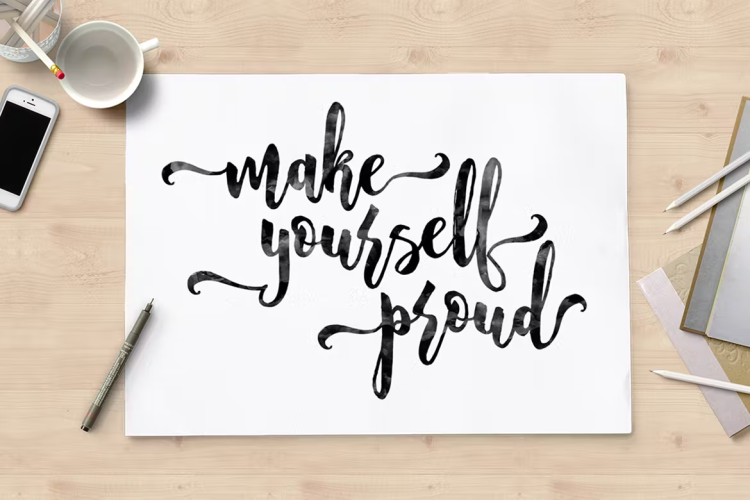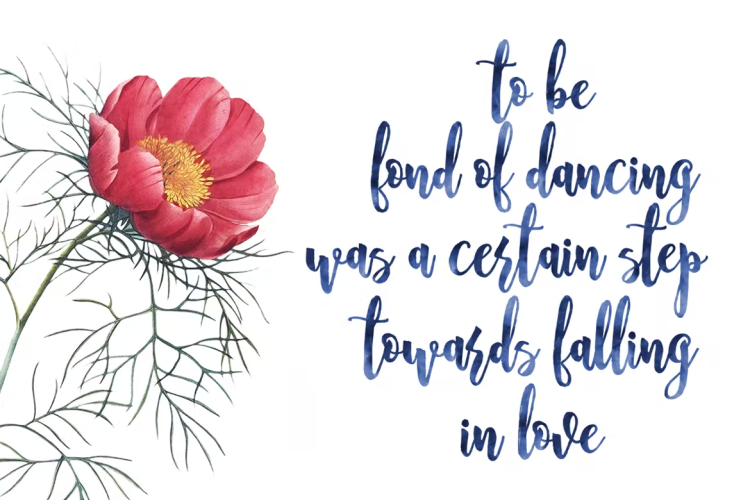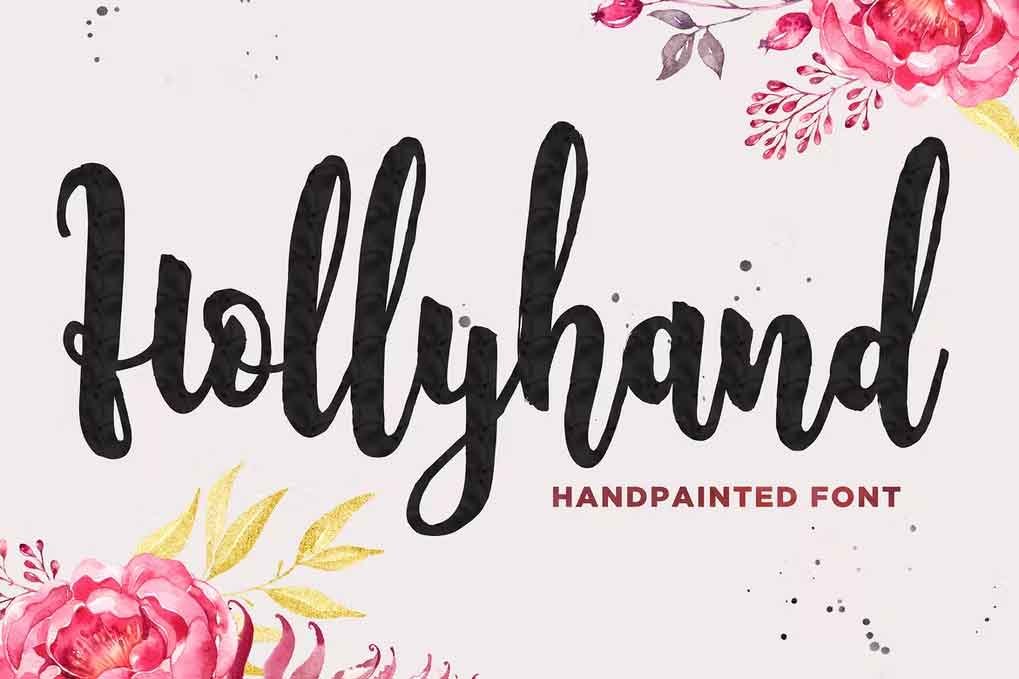
Holyhand Script Font
Holyhand Script is a handpainted font, bold, fancy and fabulous.Can used for various purposes. such as titles, labels, newsletters, posters, signatures, logos, correspondence, wedding invitations, letterhead, signage, badges, etc.
Holyhand Script features 261 Glyphs with 69+ Alternate character, including initial and terminal letters, alternates, ligatures and International support for most Western Languages is included.
Holyhand Script Font is a Script And Handwritten font that brings a professional and versatile look to your projects. Holyhand Script is a handpainted font, bold, fancy and fabulous.